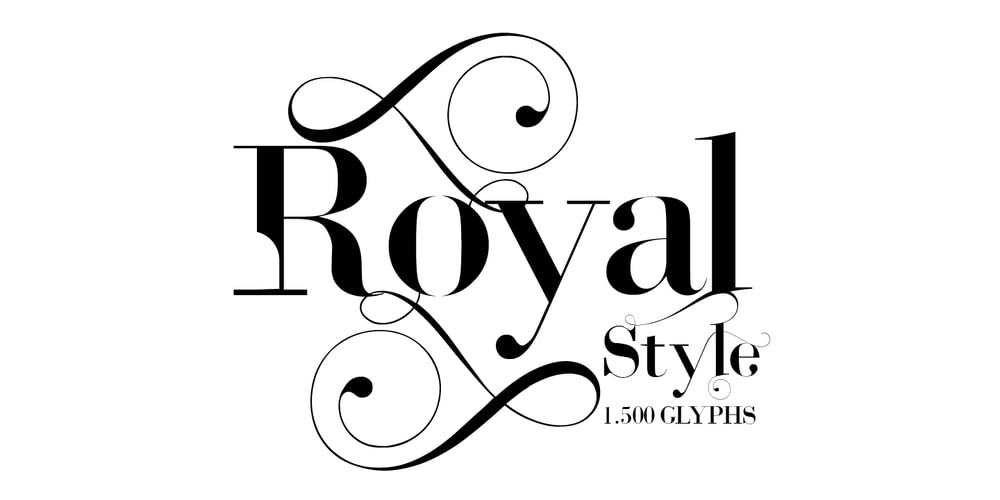
Royal Style Font Family was designed by Rizki Maulana and published by Rizkimau. Royal Style contains 1 styles and family package options. Royal Typeface is stylish copperplate fonts, combines from copperplate to contemporary font with a dancing baseline, classic and elegant touch. Can be used for various purposes. Such as headings, luxury, logos, wedding invitation, t-shirt, letterhead, lable, news, posters, badges etc. Royal Typeface features 1.500 glyphs. Support with Opentype: Unique glyphs, With cool Stylistic Alternates, Swash, Italics, Stylistic Sets 1-20, Ligatures, Multilingual characters, UPPERCASE, LowerCase, Numeric, Oldstyle Figures & Tabular Figures.